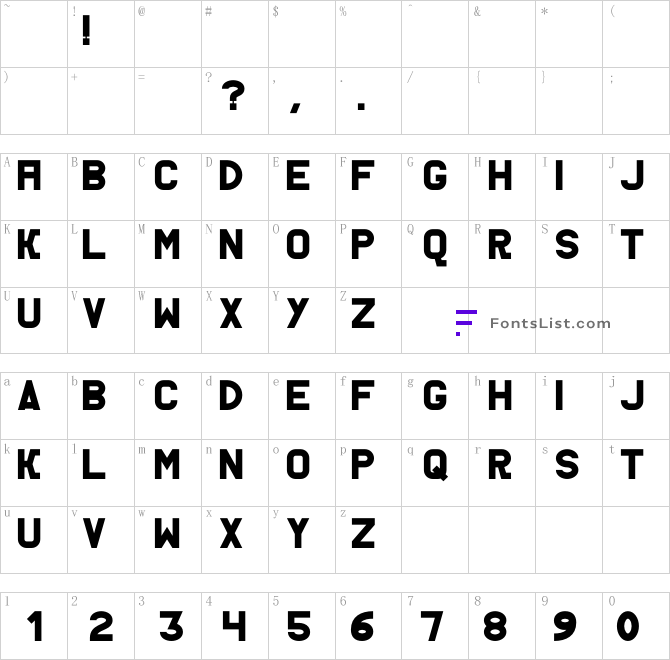
- Font Name:AC Thermes Solid
AC-Thermes-Solid.otf is a very beautiful artistic font, AC-Thermes-Solid.otf is widely used in the design and printing of various books and pictures,AC-Thermes-Solid.otf has a strong visual impact,AC-Thermes-Solid.otf is a commonly used font in newspapers, magazines and books, and is used in posters, e-commerce Poster design, store design, logo design, font design and other fields.AC-Thermes-Solid.